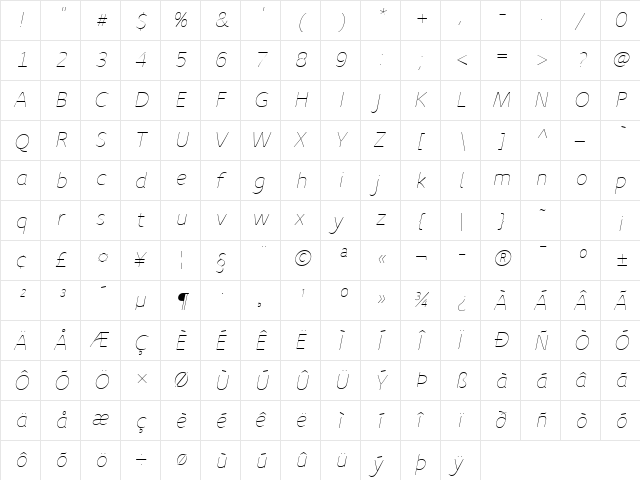
SpeakTF-LightItalic Regular Font Preview
| Foundry | FSI FontShop International GmbH |
| Designer | Jan Maack |
Design Context for SpeakTF-LightItalic Typeface
SpeakTF-LightItalic is a composed and adaptable typeface that performs quietly and consistently across a wide range of design contexts. The dynamic lean of this cut emphasises speed and emphasis in any layout. Its slender proportions lend an understated elegance to any composition.
Pro Tip: Try SpeakTF-LightItalic for annotation and caption copy alongside an upright companion — the contrast in angle creates a dynamic but ordered typographic system.